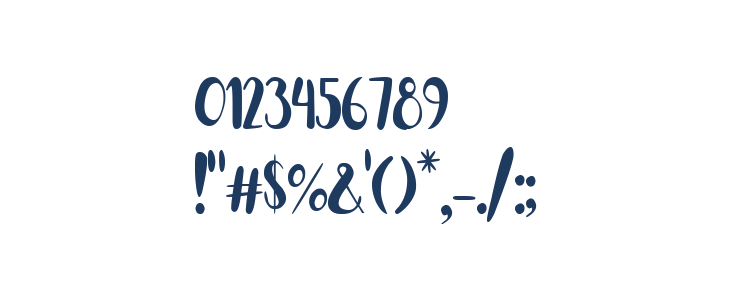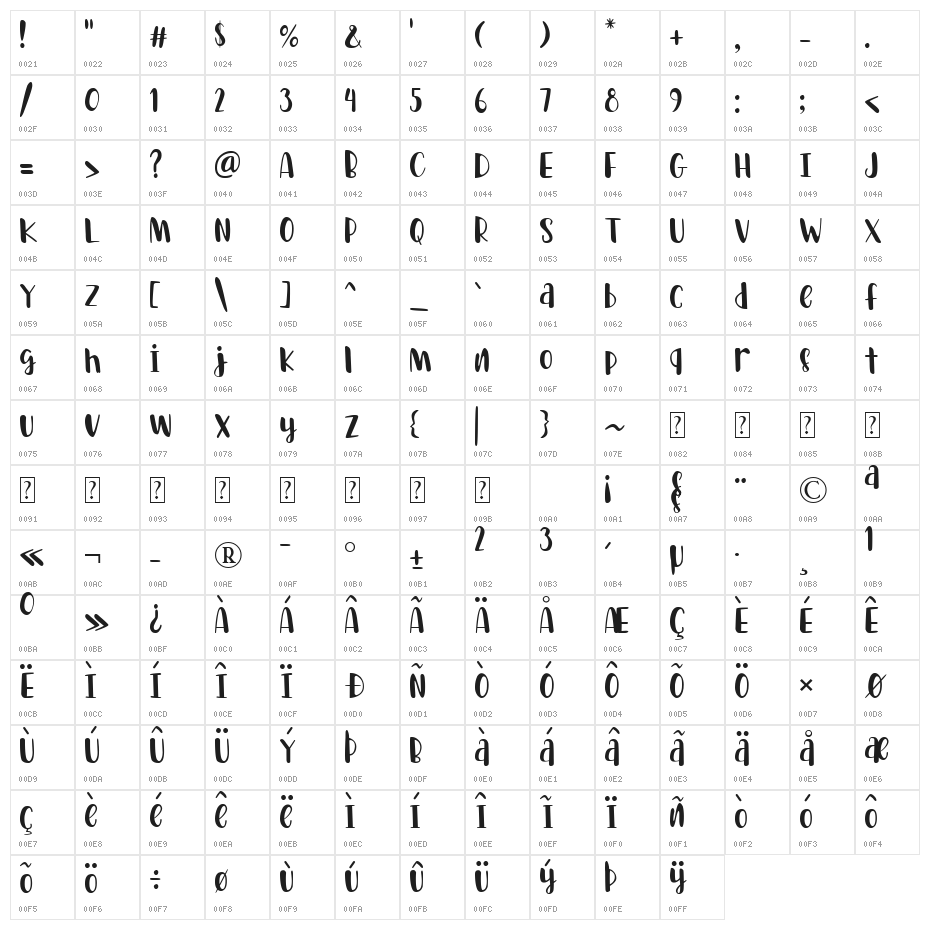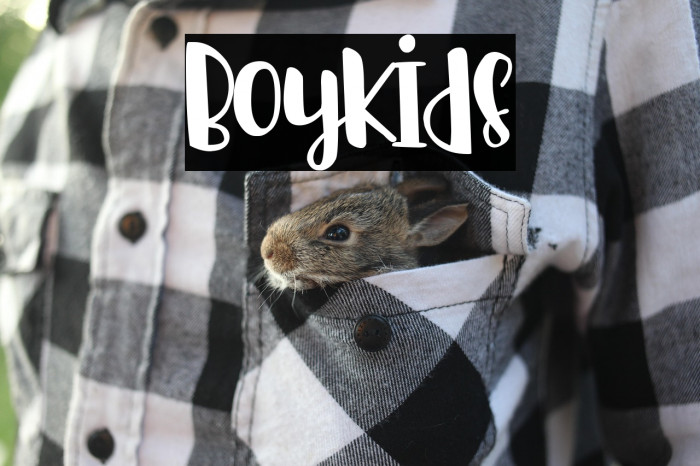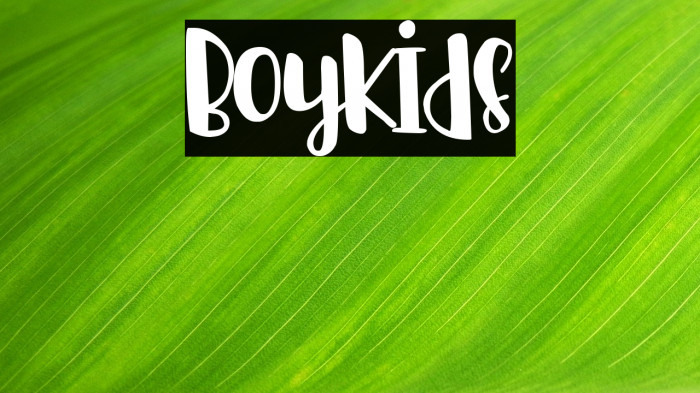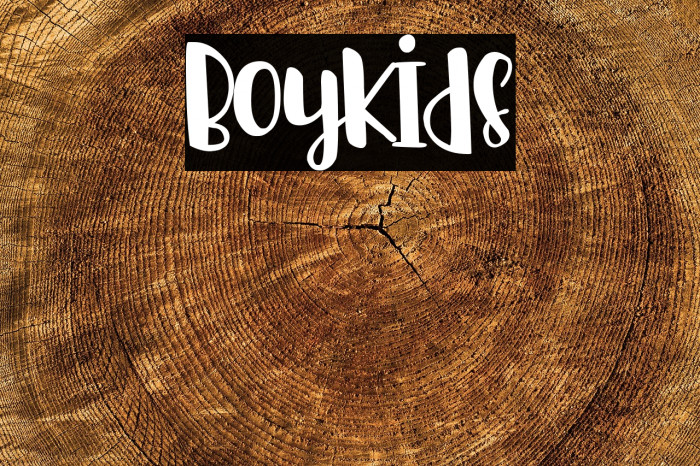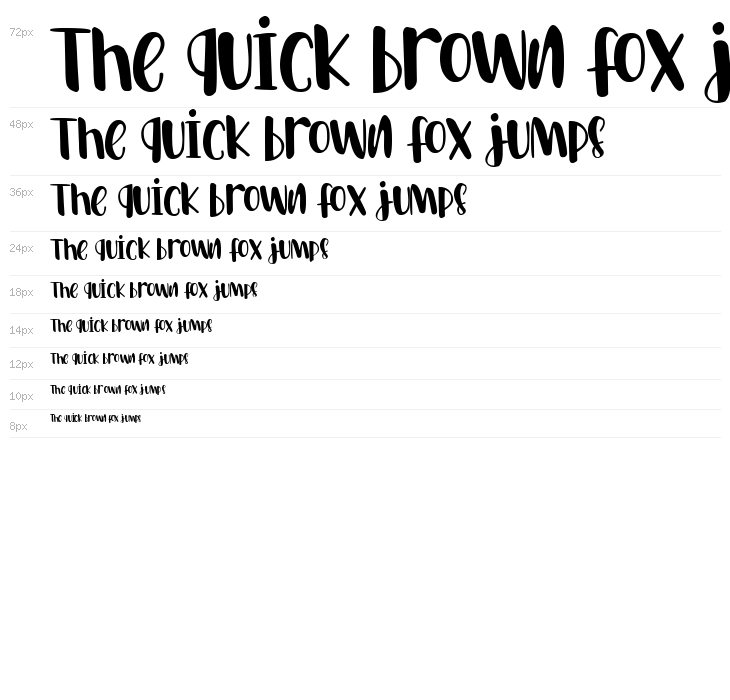
Boykids Font
Boykids Description
This playful and whimsical font features bold, rounded characters with a hand-drawn aesthetic. The uppercase and lowercase letters have a consistent, flowing style that adds a sense of fun and creativity. The numbers and special characters maintain this playful theme, making the font suitable for projects aimed at children or those seeking a lighthearted feel. The strokes are thick and consistent, providing a strong visual impact while retaining a friendly and approachable appearance.
Overall StylePlayful
Proposed ProjectsIdeal for children's books, playful branding, greeting cards, and educational materials.